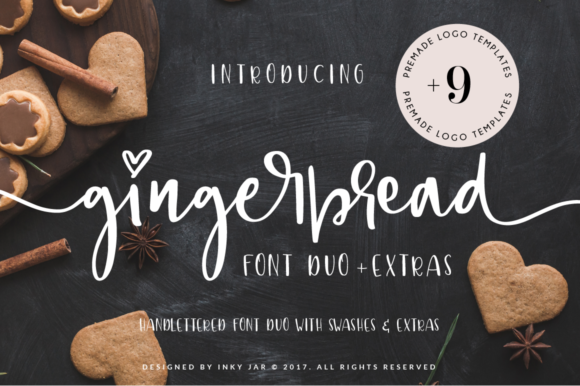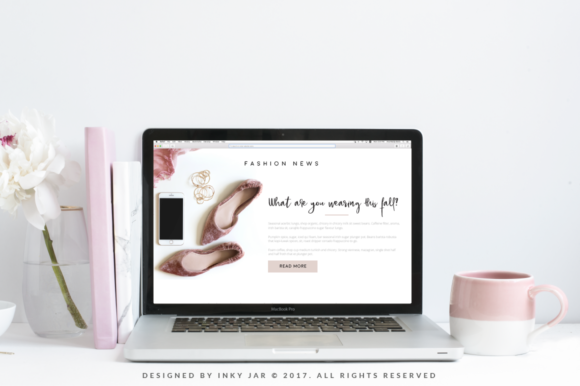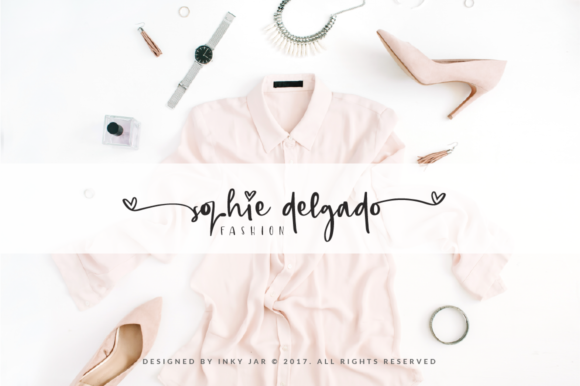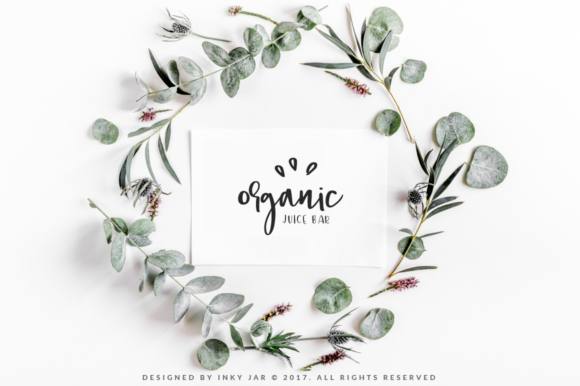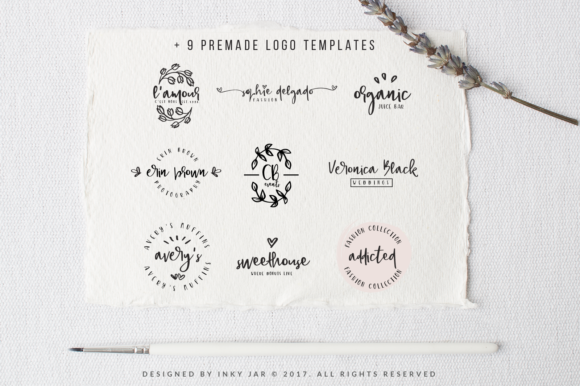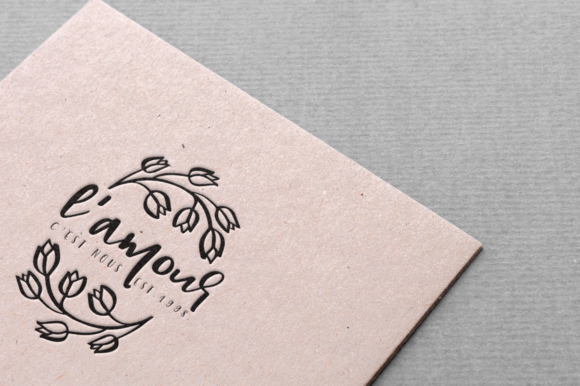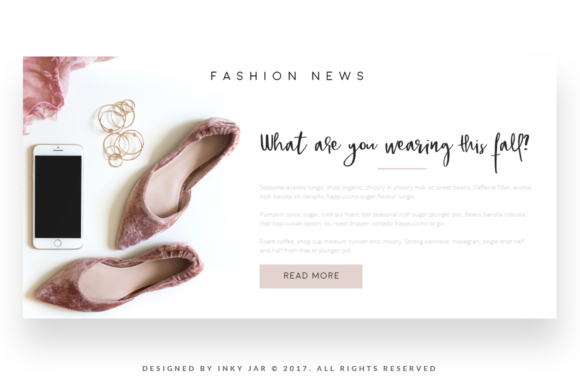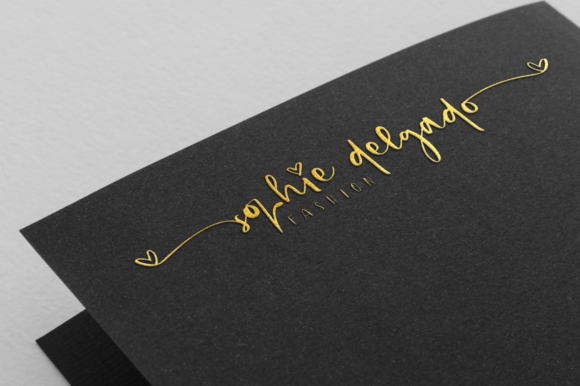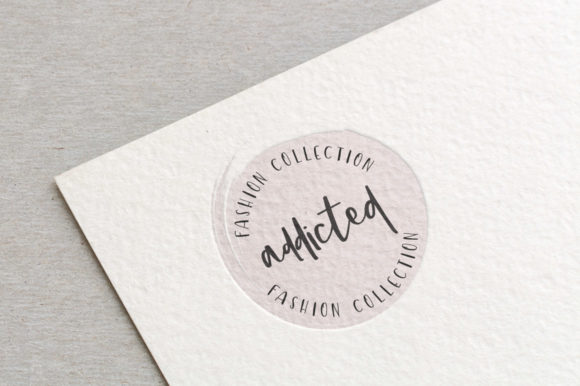
Gingerbread Duo Font
About Gingerbread Duo Font
The Gingerbread is a bouncy, hand lettered font duo with lots of swashes and illustrations. It has 2 additional sets of stylistic alternates of beginning and ending letterforms.
As this font is perfect for feminine brands, it also includes a set of 9 premade logo templates for you to use for yourself or your clients.